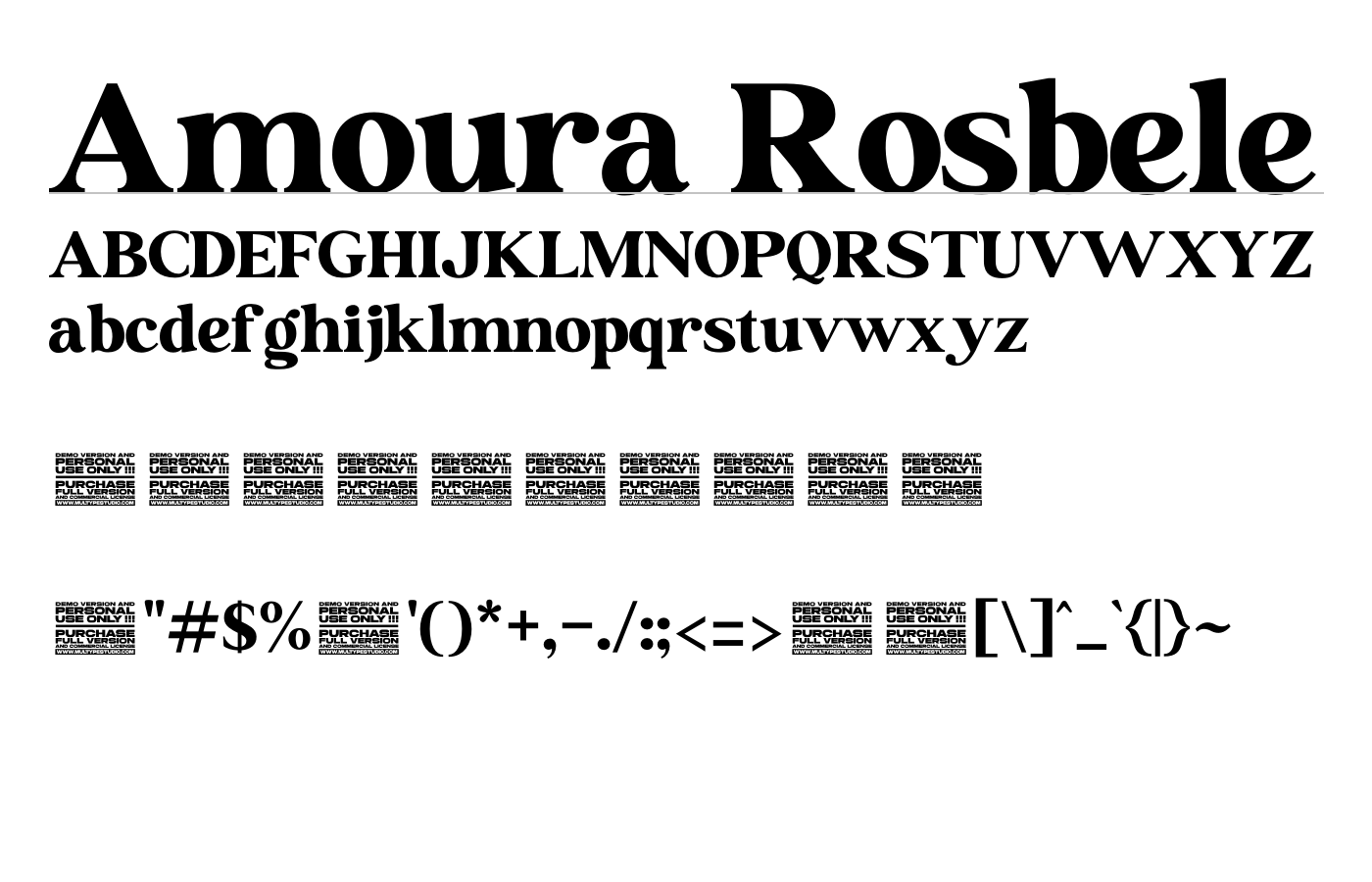
Amoura Rosbele is a bold serif font with strong contrast between thick and thin strokes, featuring sharp, bracketed serifs and elegant, classic letterforms. It carries a timeless, sophisticated personality making it ideal for luxury branding, editorial headlines, and stylish logos where a refined yet confident presence is needed. This font’s balanced proportions and distinctive details give it a versatile appeal for both modern and traditional design contexts.
Amoura Rosbele Font
About Amoura Rosbele Font